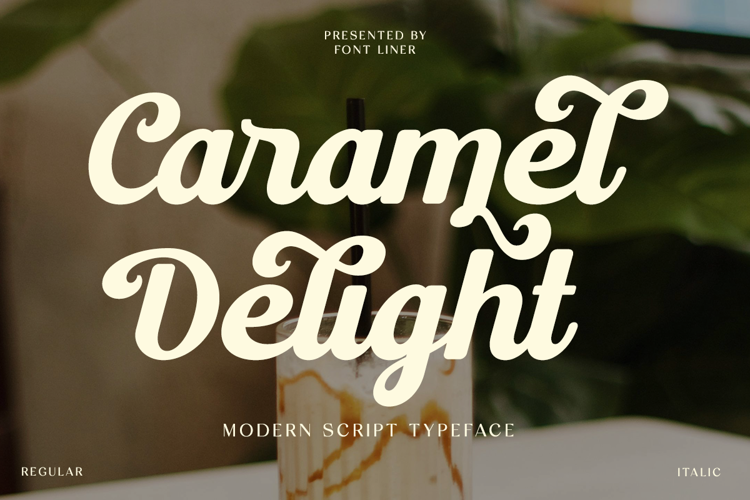
Caramel Delight Font
Caramel Delight is a bold retro script font by Fontliner — thick, bouncy connected letters with fancy swirled capitals, like the hand-painted sign on a 1950s ice cream parlor. Made for logos, cafe and bakery branding, packaging, and posters that need a warm, nostalgic feel. Please note: this demo version has no numbers 0–9 and is missing the lowercase letter o.